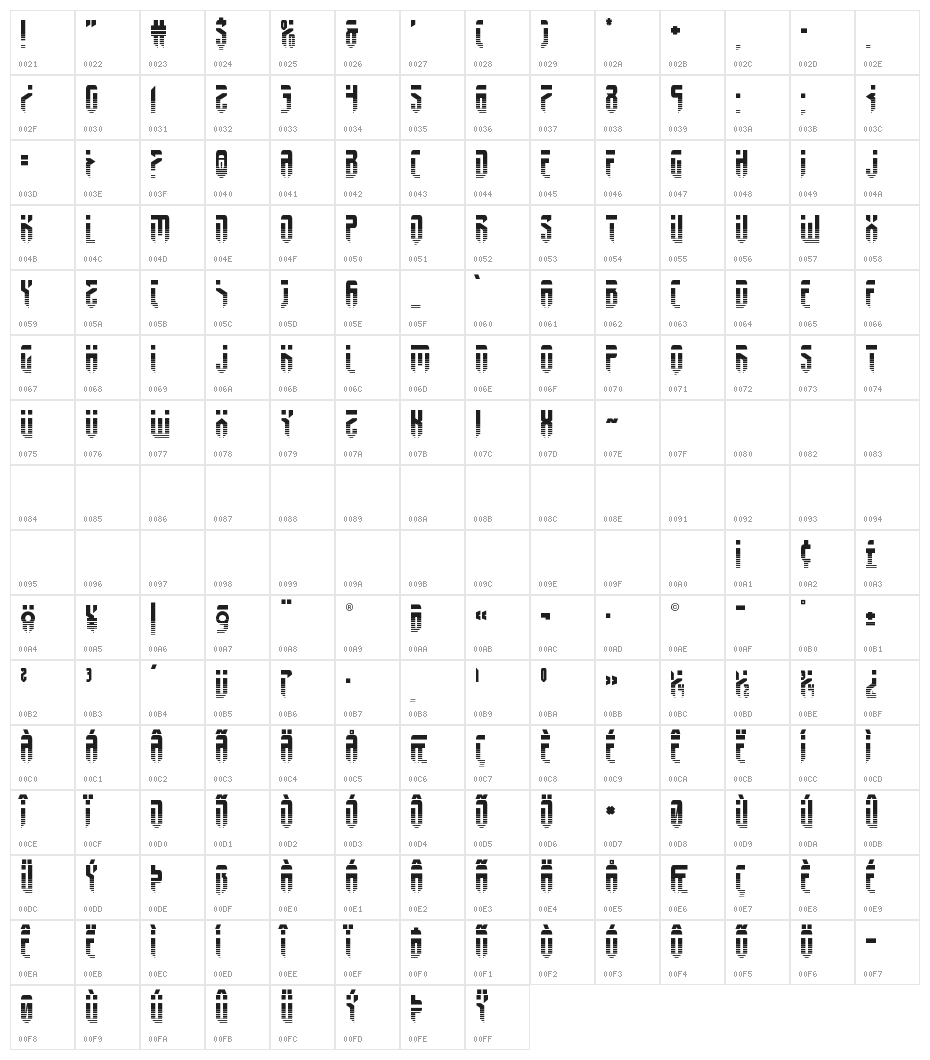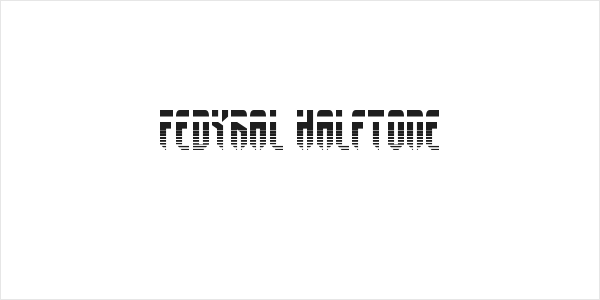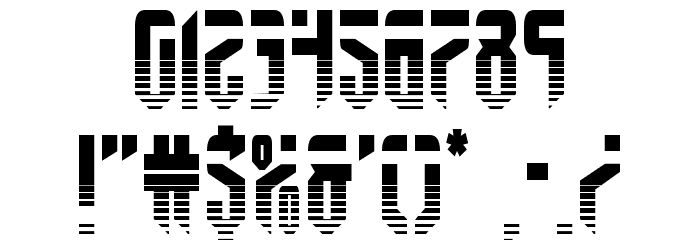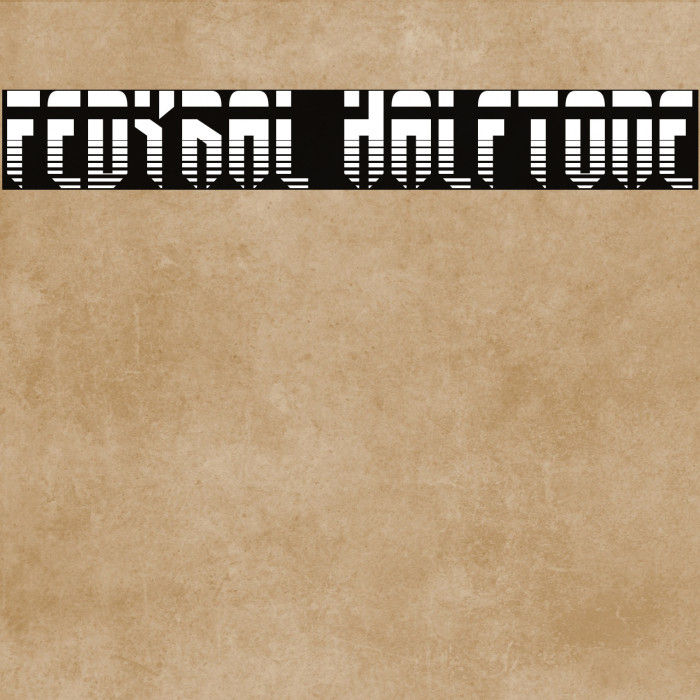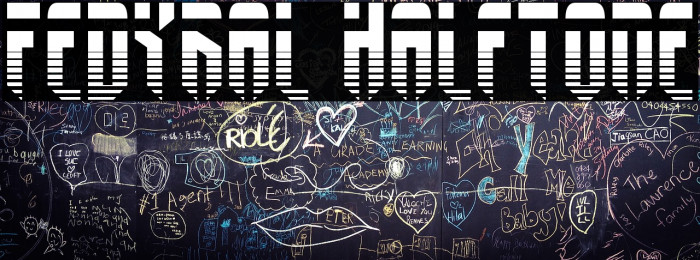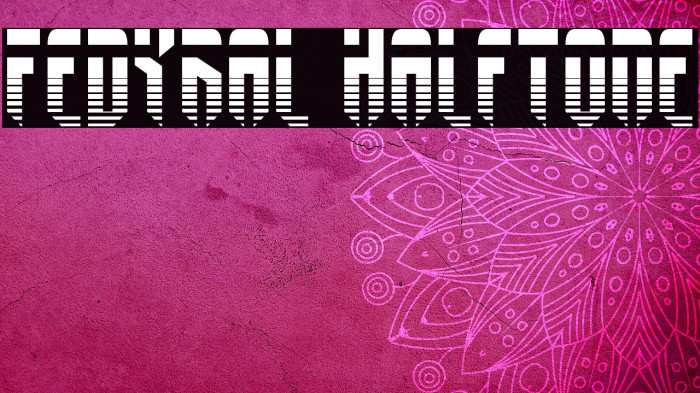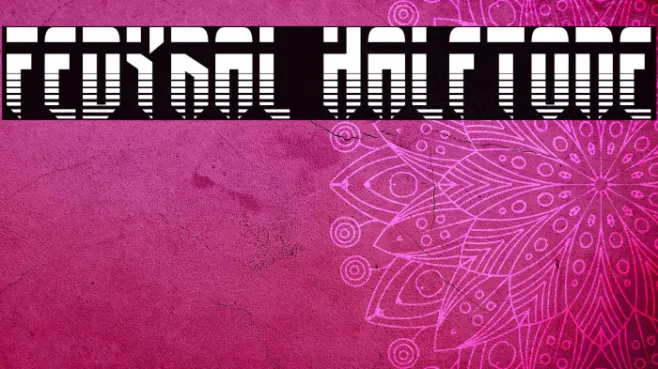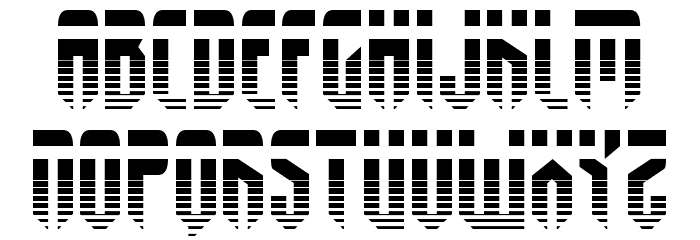
Fedyral Halftone Font
Fedyral Halftone Description
This font features a bold, modern design with a distinctive halftone pattern that creates a striking visual effect. The characters are constructed with horizontal lines that gradually decrease in thickness, giving a sense of depth and movement. The uppercase and lowercase letters maintain a consistent style, with sharp angles and geometric shapes. The numbers and special characters follow the same design principles, ensuring a cohesive look across all elements. This font is ideal for projects that require a futuristic or edgy aesthetic, making it suitable for digital media, posters, and branding materials.
| Proposed Projects | Ideal for digital media, posters, branding materials, and any project needing a futuristic or edgy aesthetic. |